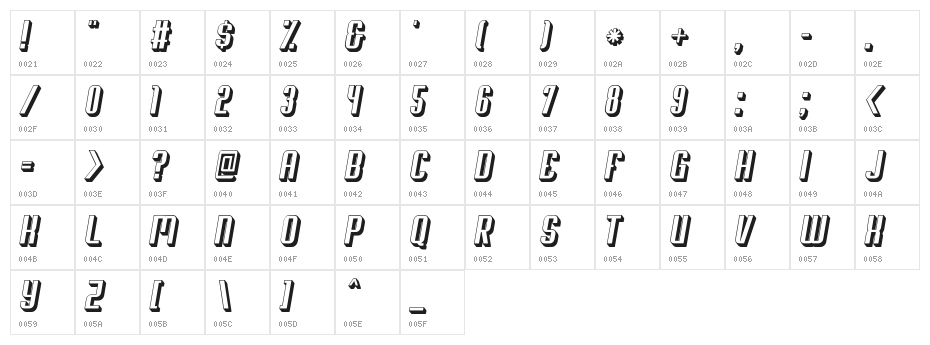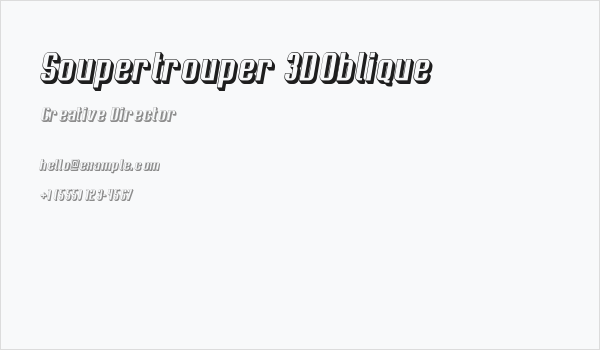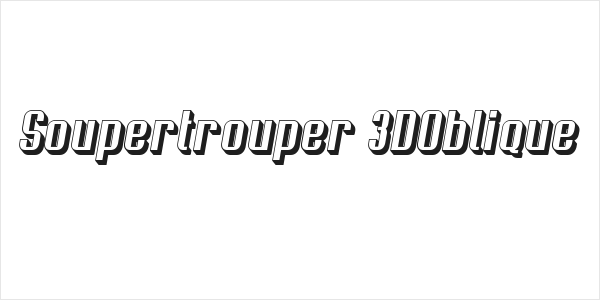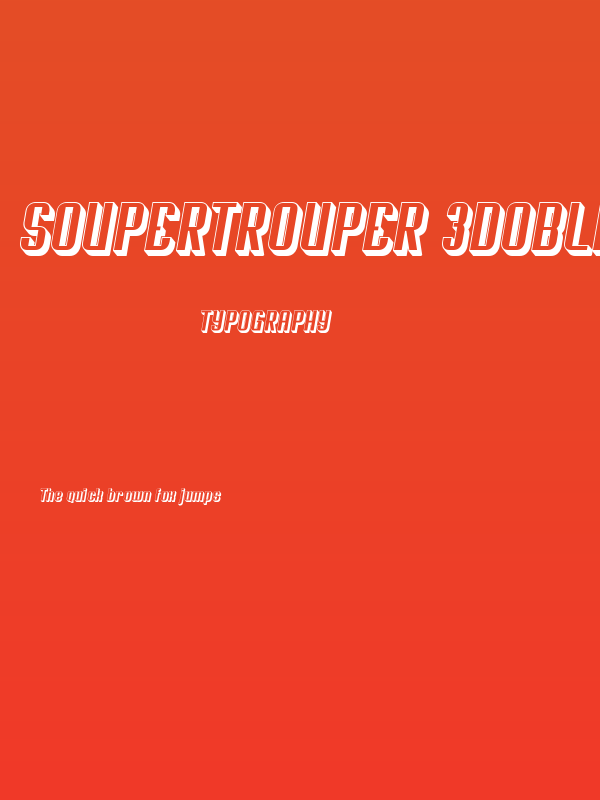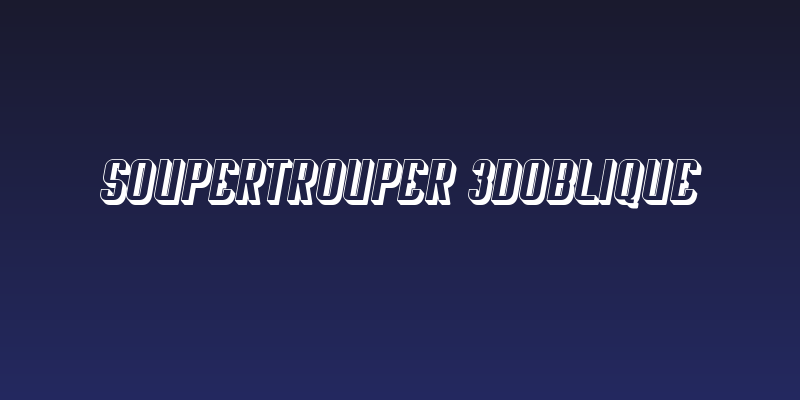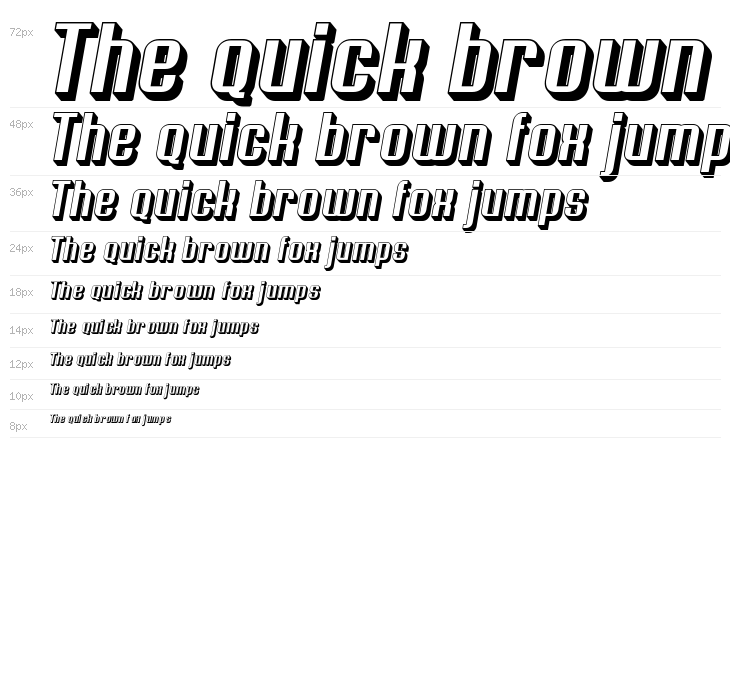
Soupertrouper 3DOblique Font
Soupertrouper 3DOblique Description
This font features a bold, three-dimensional oblique style that gives it a dynamic and eye-catching appearance. The letters are designed with a strong shadow effect, creating a sense of depth and movement. Each character is slightly slanted, enhancing the oblique style and adding a modern twist to the classic bold typeface. The uppercase and lowercase letters maintain a consistent width, while the numbers and special characters follow the same design principles, ensuring uniformity across all elements. This font's unique 3D effect makes it stand out, making it ideal for projects that require a bold and impactful visual statement.
| Proposed Projects | Ideal for posters, headlines, logos, and any design needing a bold, impactful look. |